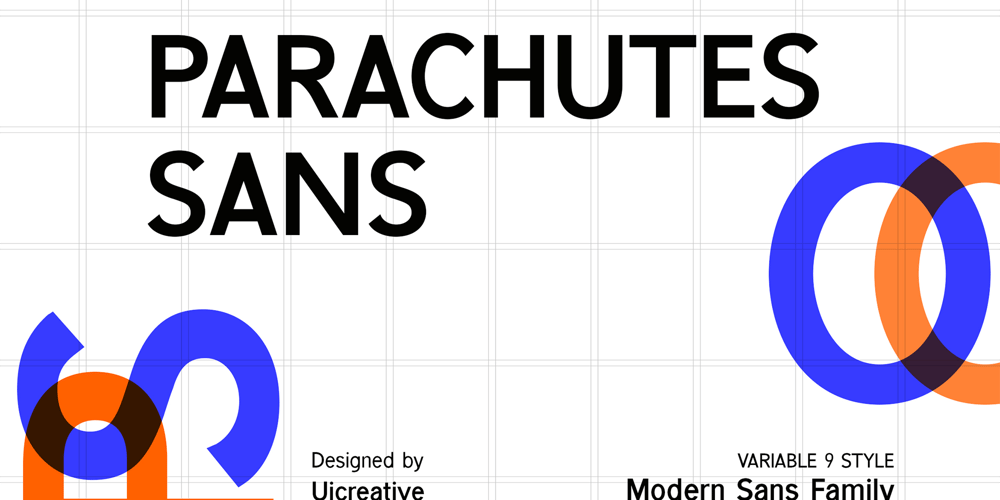
Parachutes Sans
Parachutes Sans font
Parachutes Sans Font Family was designed by Hero and published by UICreative. Parachutes Sans contains 9 styles and family package options. Introducing our new product the name Parachutes Modern Sans Serif Font Family comes with 9 different weights. Modern Sans Serif font that feels beautiful classy, elegant, and modern. This font is perfectly suited for a wide variety of projects, such as signature, stationery, logo, wedding, typography quotes, magazine or book covers, website headers, clothing, branding, packaging design, and more. Also for fashion-related branding or editorial design and displays both masculine and feminine qualities.